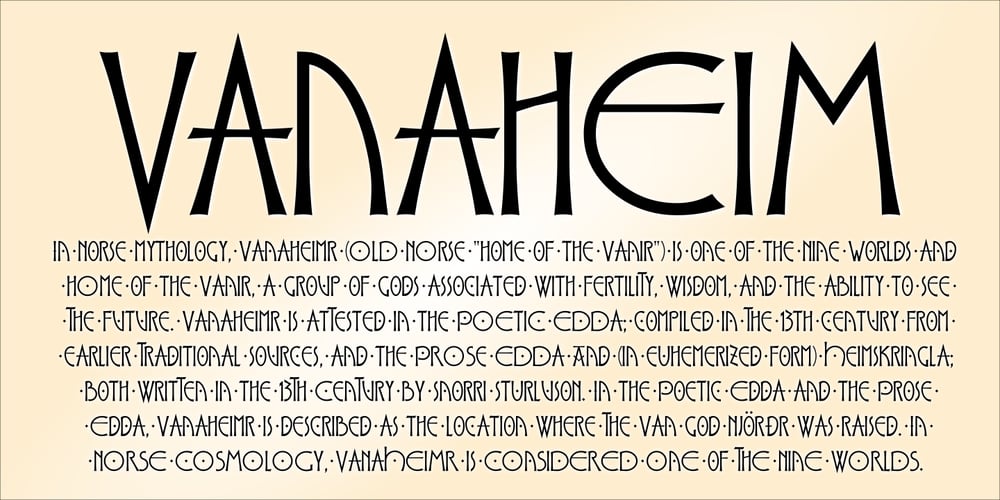
PR Vanaheim
PR Vanaheim font
PR Vanaheim Font Family was designed by Peter Rempel and published by PR Fonts. PR Vanaheim contains 7 styles and family package options. This is a perfect font for historical or fantasy titles. It is influenced by ancient Nordic runes. the strokes flare slightly, to a concave terminal for a finely carved appearance. There are two sets of capitals in PR-Vanaheim-DC (Dual Capitals); one set of narrow letters, more closely related to Runic forms, and one set which includes wider and circular letters, which can be freely combined with the narrow letters for the variety associated with hand lettering. There is one version with dots placed in the centre of large counters and one version without the dots. The broad caps character set includes characters which allow for tight spacing; a dropped L, and a tall T. There are also two different lowercase sets, one modern, and one archaic, all of which can be freely mixed to fine tune the appearance of your text. Here is the brief description of the available faces: PR-Vanaheim-Med-DC-01 Duplex Caps PR-Vanaheim-Med-DC-02 Duplex Caps, Dotted counters and dot space PR-Vanaheim-Med-DC-03 Duplex Caps, Dotted counters PR-Vanaheim-Med-LC-04 Broad Caps, with modern style lower case. PR-Vanaheim-Med-LC-05 Narrow Caps, with modern style lower case. PR-Vanaheim-Med-LC-06 Broad Caps, with archaic lower case. PR-Vanaheim-Med-LC-07 Narrow Caps, with archaic lower case.